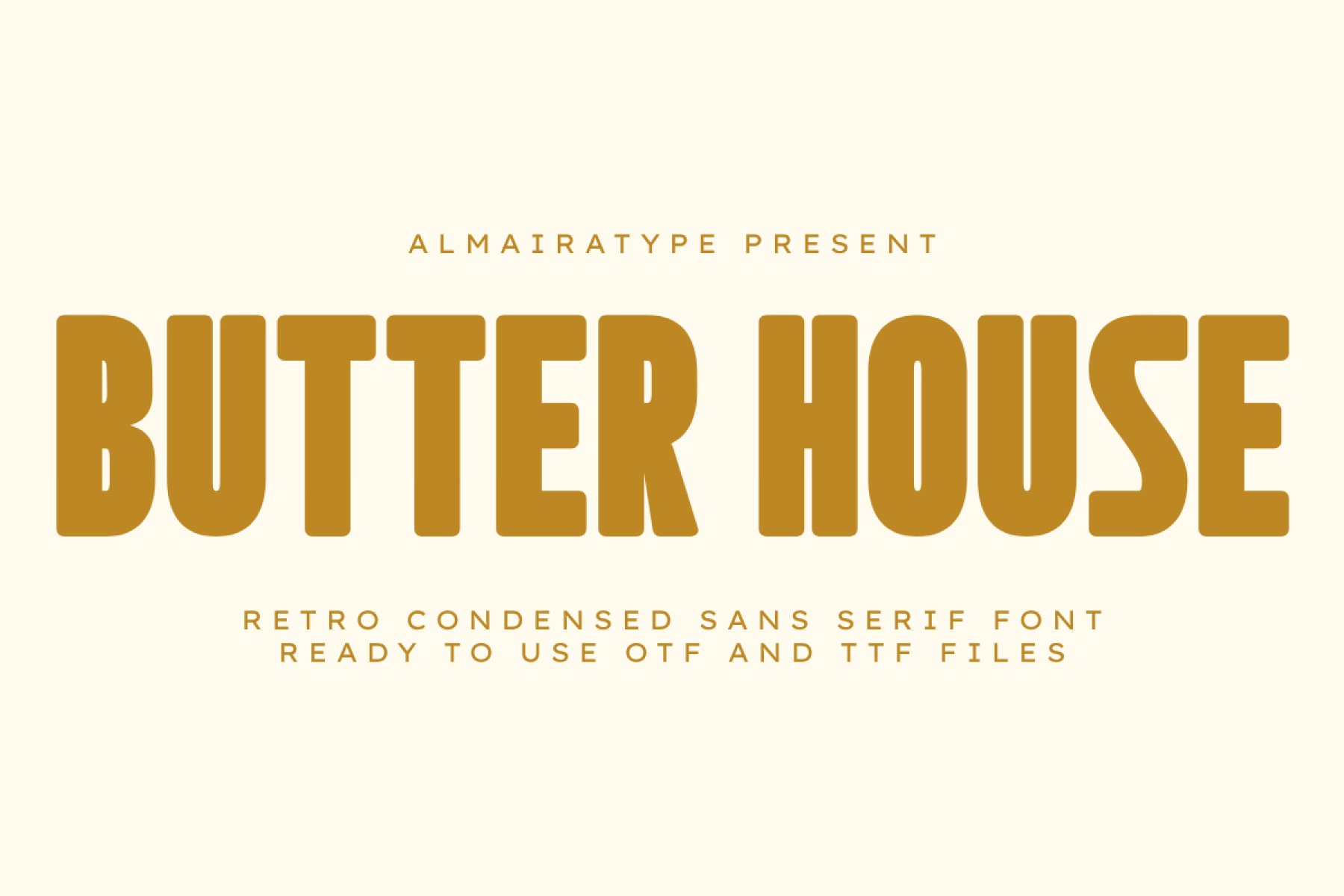
Butter House – Condensed Sans Serif Font
Butter House – Condensed Sans Serif Font, an ultra-bold retro condensed sans serif font engineered for creators who want their headlines to pop with a smooth, confident charm. Meticulously structured with a heavy display weight, balanced tall compressed baselines, and softly rounded corners, this versatile font brings an instant blend of vintage lifestyle warmth and clean modern urban professionalism to any creative canvas.
Whether you are an apparel designer launching a fresh streetwear collection, a graphic artist establishing a bold commercial food brand, or a high-volume print-on-demand seller optimizing listings for search engine conversions, Butter House delivers unmatched readability and outstanding shelf appeal. For the crafting community and DIY enthusiasts, every single glyph has been technically polished and vector-optimized to ensure a smooth, effortless cutting and weeding experience on digital cutting machines like Cricut and Silhouette. Bring the powerful, playful, and timeless aesthetic of Butter House into your commercial design toolkit today!